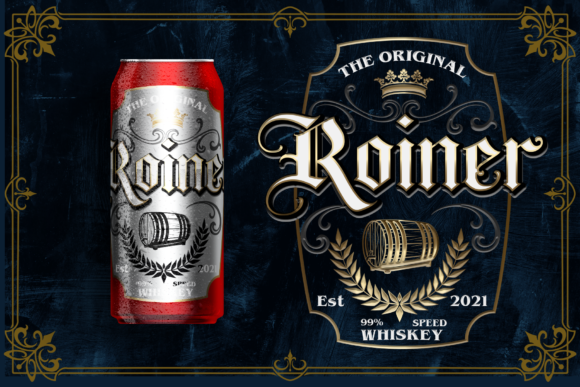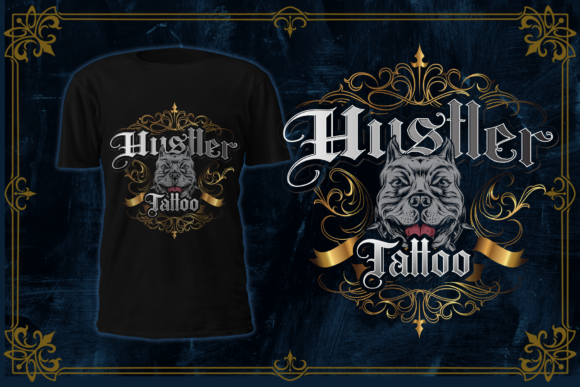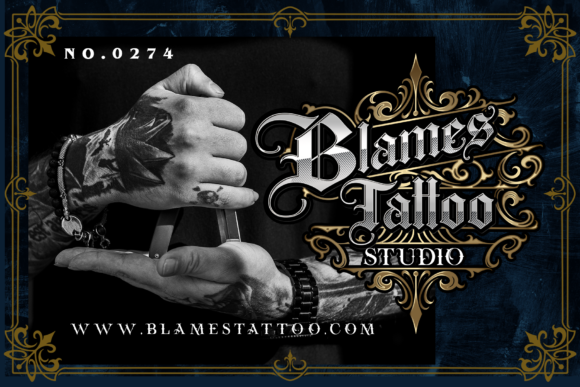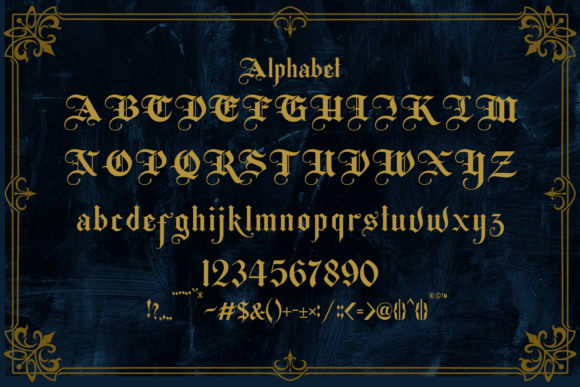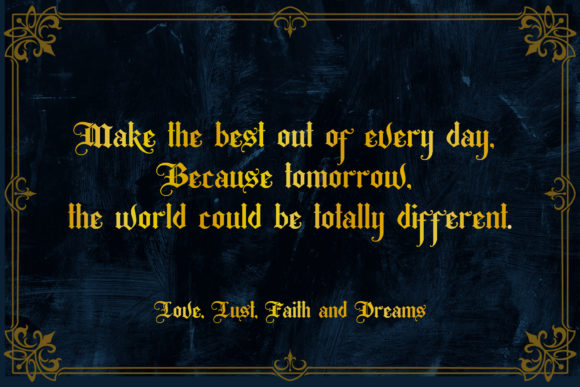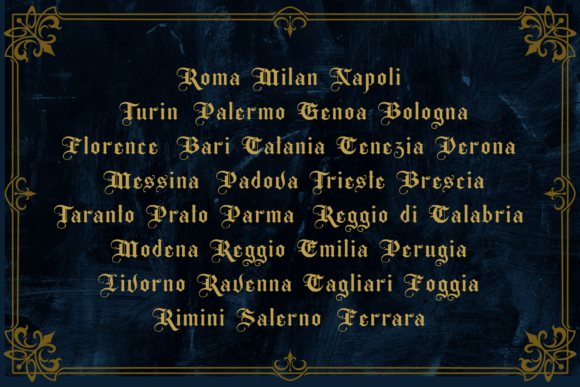
Introduction to Rostage Font
Remember the rush of excitement you feel when you stumble upon the perfect font for your creative project? It’s like finding a missing puzzle piece that brings your entire design together. For designers, discovering a unique and bold font like the Rostage Font can be a game-changer. Its striking blackletter design makes it an ideal choice for labels, advertising, commercials, and posters that require a distinct vibe.
Whether you’re working on a high-profile campaign or a personal project, having access to high-quality design resources like the Rostage Font can be a valuable asset. With its transparent background and versatile style, this font is perfect for designers who want to add an extra layer of creativity to their work. And the best part? You can download it for free, making it an essential addition to any design toolkit.
Key Features of Rostage Font
- High-quality design resource with a unique, modern aesthetic, ideal for creative projects that require a distinctive touch.
- Features a transparent background, allowing for seamless integration with any background image or color, giving designers maximum flexibility.
- Available in multiple font sizes and resolutions, ensuring that it can be used effectively in a range of creative projects, from small business logos to large-scale branding initiatives.
- Perfect for designers looking for a high-quality, free font that can help elevate their creative project and make it stand out from the crowd.
- Supports a wide range of languages, making it a versatile design resource that can be used globally.
Honest Review: Rostage Font
I recently came across the Rostage Font, and I must say it’s a great addition to any designer’s toolkit. This versatile font is perfect for creative projects that require a unique and modern touch.
- ✨ High quality design that’s perfect for a variety of applications, from logos to brochures.
- ✨ A transparent background makes it easy to customize and pair with any design element.
- ✨ The font is highly customizable, allowing designers to create a unique look for their projects.
- ⚠️ The font may not be suitable for very small text sizes, as it can become difficult to read.
- ⚠️ It’s not a comprehensive font family, so you may need to supplement it with other fonts for more complex projects.
Overall, I’m impressed with the Rostage Font. It’s a great design resource for anyone looking to add a touch of modernity to their creative project. With its high quality design, transparent background, and free download, it’s a must-have for any designer’s toolkit.
Tips for Getting the Most Out of Rostage Font
Use Rostage Font with a transparent background to create a clean and modern design.
Ensure high quality by using Rostage Font at the correct size and resolution.
Experiment with different font sizes and colors to create a visually appealing design.
Rostage Font is ideal for use in branding materials, such as logos and business cards.
It is also suitable for use in digital products, such as e-books and presentations.
Use Rostage Font to add a touch of elegance to your creative project.